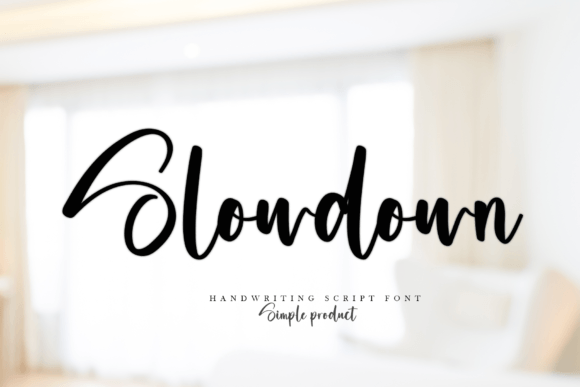
Say hello to Slowdown Font, a beautiful script font that exudes a warm and personal touch, perfect for adding a unique charm to your designs. Created by the talented Creatype Designer, Slowdown is more than just a font; it's an expression of creativity and craftsmanship.
This handwritten font comes alive with its distinct and timeless style, making it ideal for a wide range of projects, from logos and wedding stationery to photography watermarks, modern websites, and more. Slowdown's carefully crafted characters dance across the page, captivating your audience with their elegance and charm.
Whether you're a designer, an artist, or simply someone who appreciates the beauty of typography, Slowdown Font is a must-have addition to your digital toolbox. Its versatility and timeless appeal make it a perfect choice for any project that demands a touch of elegance and personality.